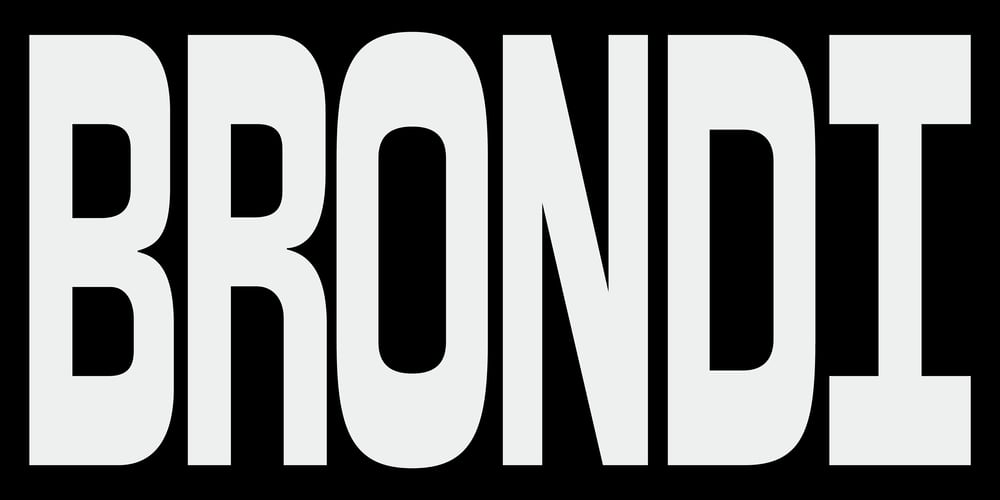
Brondi Font Family was designed by Bob Duckas and published by System B. Brondi contains 1 styles and family package options. Brondi is based on a wood type specimen from a french foundry, featuring a weird grotesque with inverted contrast and extremely tight spacing. It was used for large displays mainly in advertising. The font is a caps version only.